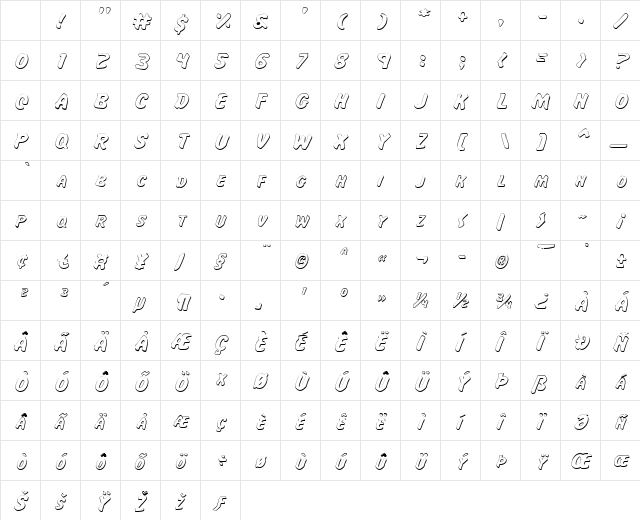
Complete Miss Amanda Shadow Ital glyph index. Displaying only characters natively supported by Miss Amanda Shadow Ital font.
Miss Amanda is built around its visual character rather than neutral utility - its distinctive forms are designed to make an impression at display sizes.